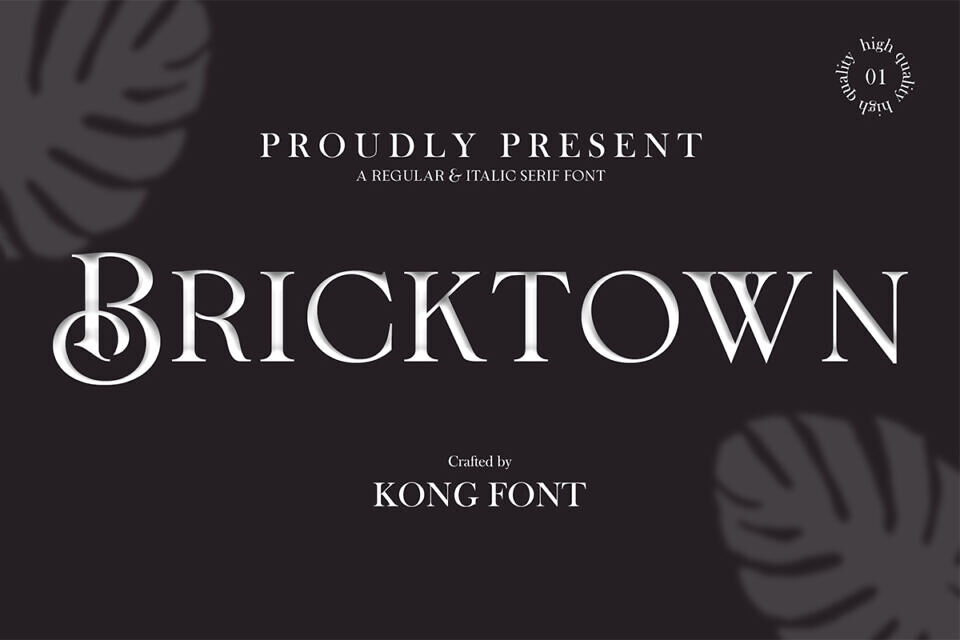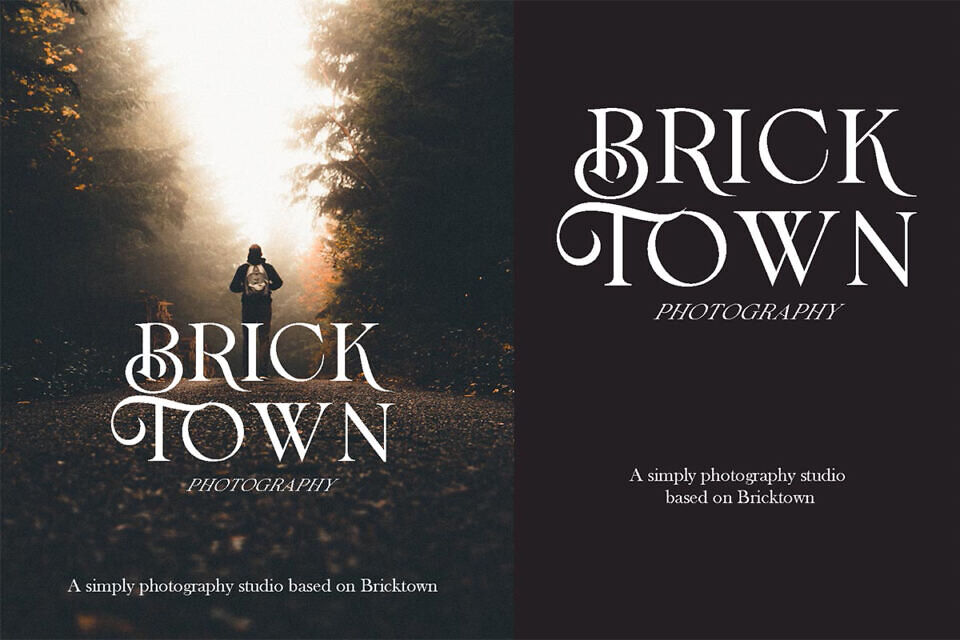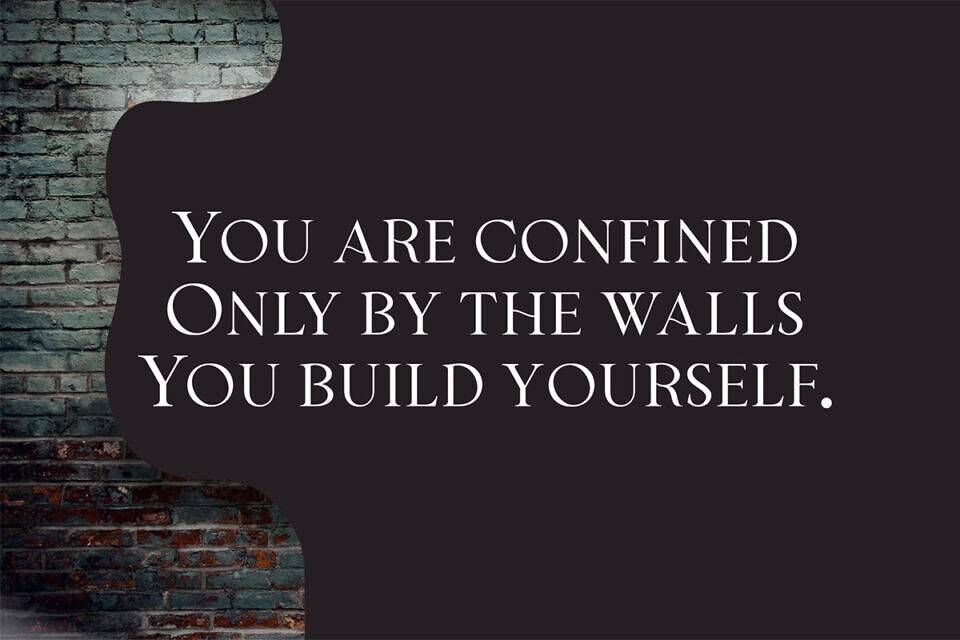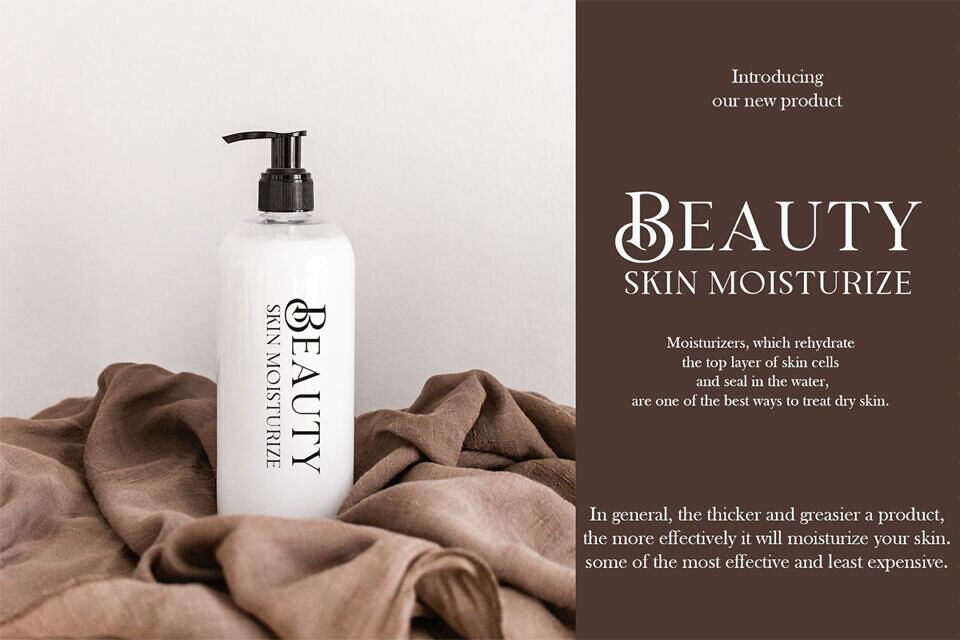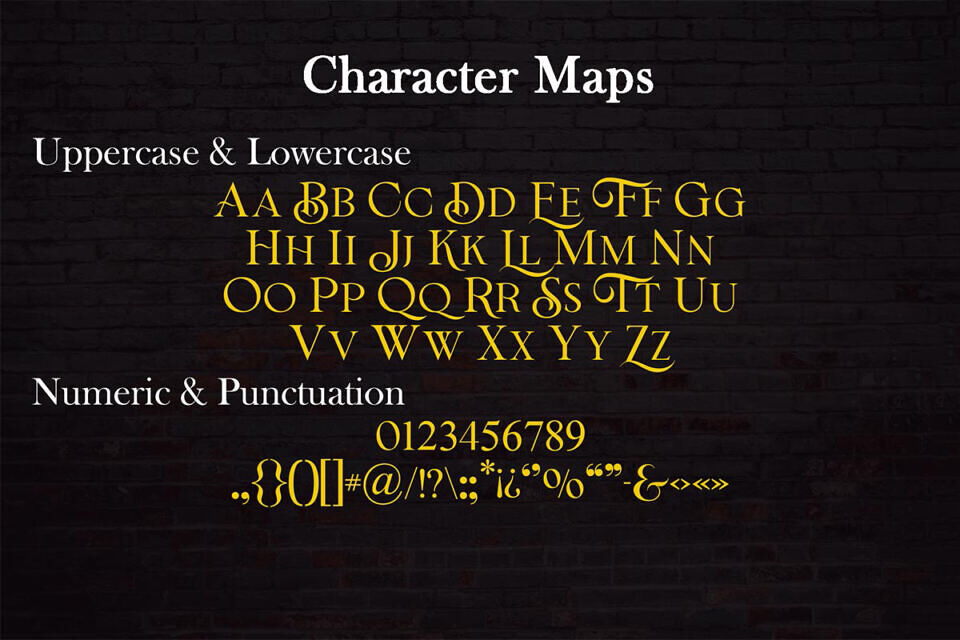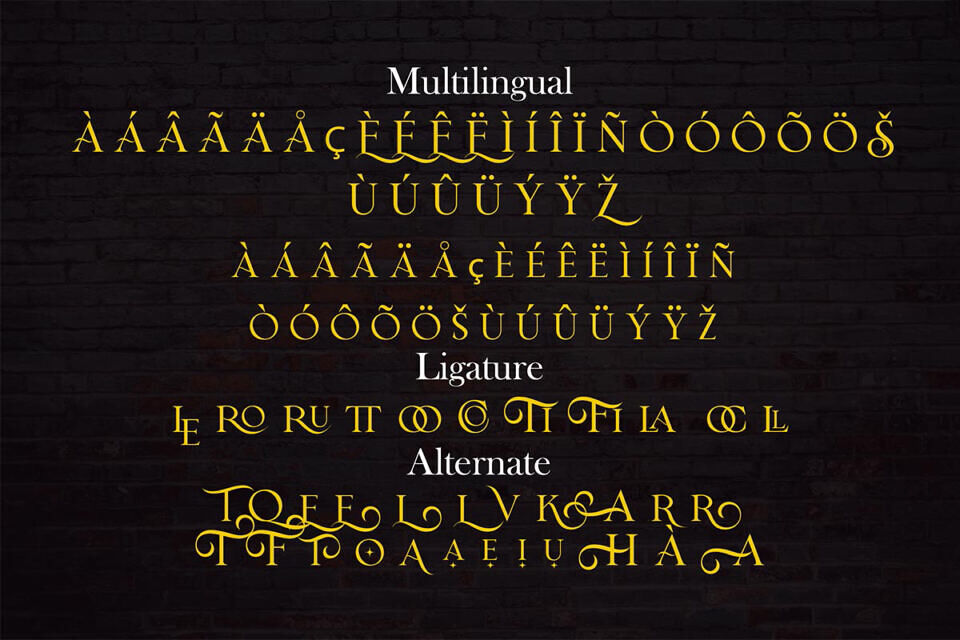
Bricktown Font
The Bricktown font combines classic and modern elements, setting it apart from other serif fonts. Its simple design and delicate serifs give it an elegant look. The curved lines extending beyond the letter boundaries add a touch of sophistication. This font is highly versatile, making it ideal for wedding stationery, posters, and gifts, and its classic style suits formal occasions perfectly.